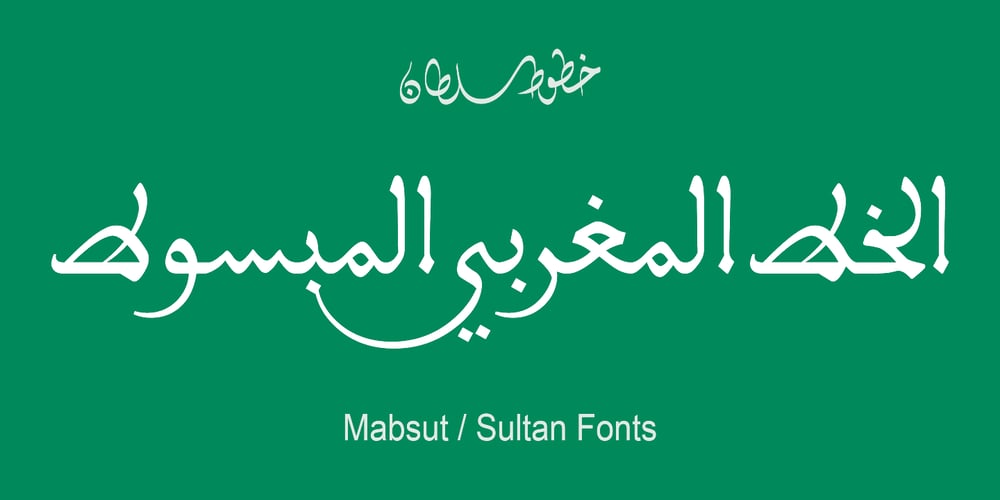
SF Mabsut Font Family was designed by Sultan Maqtari and published by Sultan Fonts. SF Mabsut contains 1 styles and family package options. Sultan-Mabsut, designed by Sultan Maqtari in 2018, is an Arabic typeface in the style of Maghribi (Moroccan Mabsut). This style, which originated in western North Africa, is characterized by a strong baseline and long, fluid, and curvaceous curves. It can be used in headlines or in text and gives a very fresh and calligraphic look. The font combines two methods of writing at one time (writing oriental and writing Moroccan). It also includes lots of Stylistic Alternates.